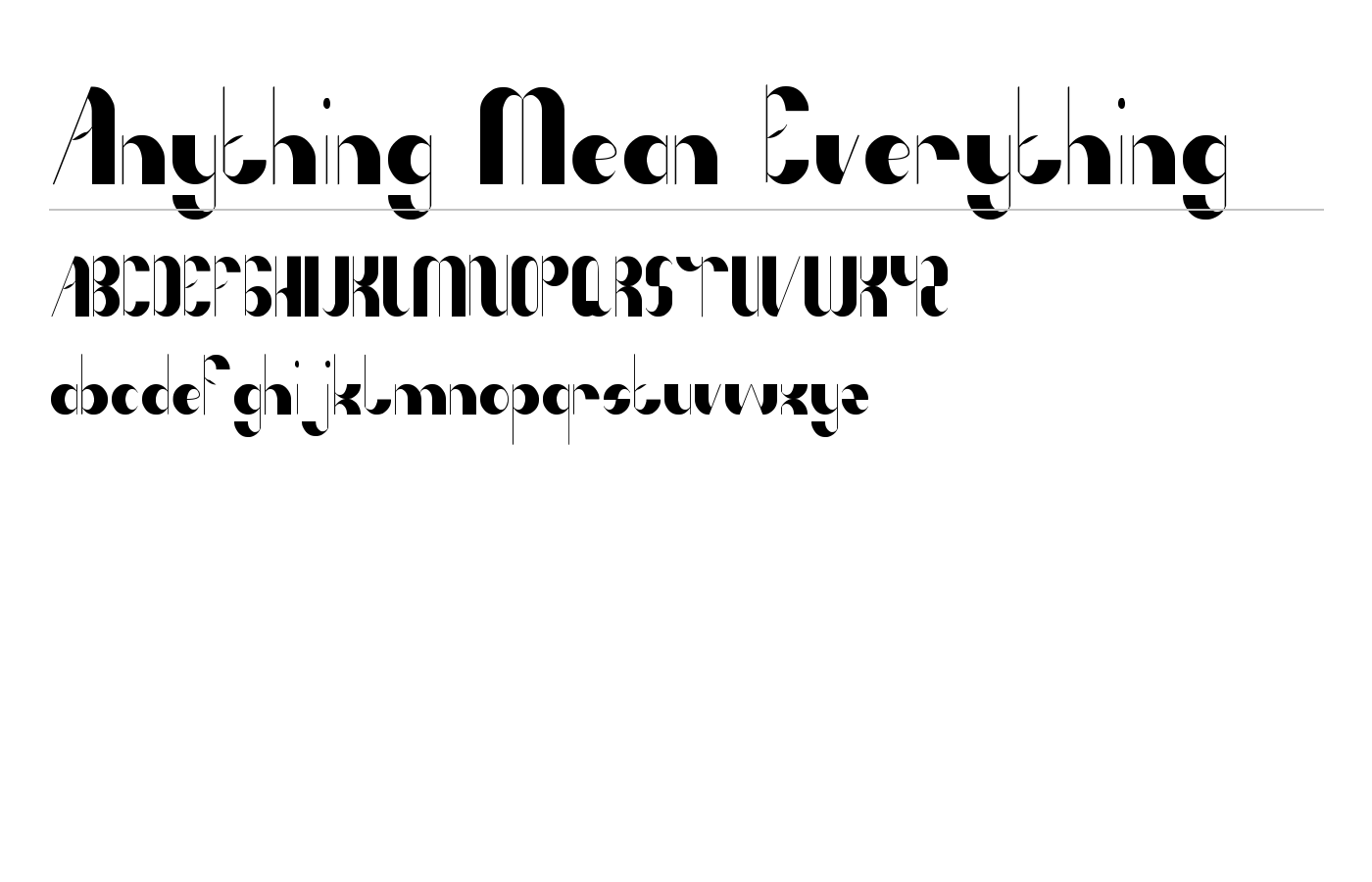
Anything Mean Everything is a unique serif typeface that combines bold, geometric shapes with delicate, calligraphic strokes, creating a striking contrast and artistic flair. Its unusual letterforms and high contrast give it a modern, avant-garde feel, making it ideal for eye-catching logos, fashion branding, and editorial headlines where a stylish, sophisticated impact is desired. This font works best in large sizes, adding a creative and luxurious touch to any design.
Anything Mean Everything Font
About Anything Mean Everything Font